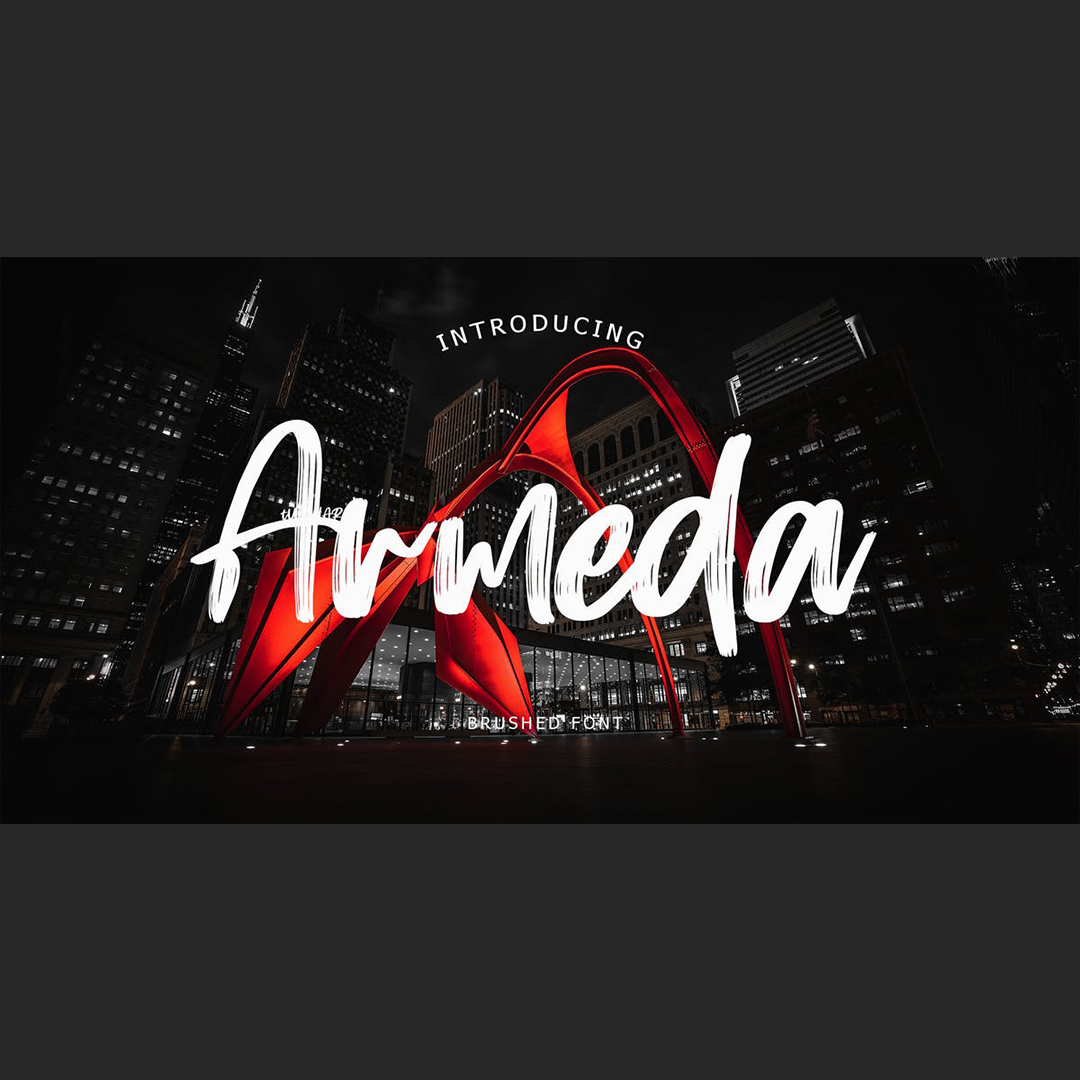
Armeda Brush Font Display
Armeda is an exciting script font with brush style. This beautiful script can make your text appear elegant, luxurious, and modern! This font perfect for branding projects, logo, book cover design, tshirt designs, social media posts, advertisements, product packaging, product designs, label, watermark, invitation, stationery and any projects